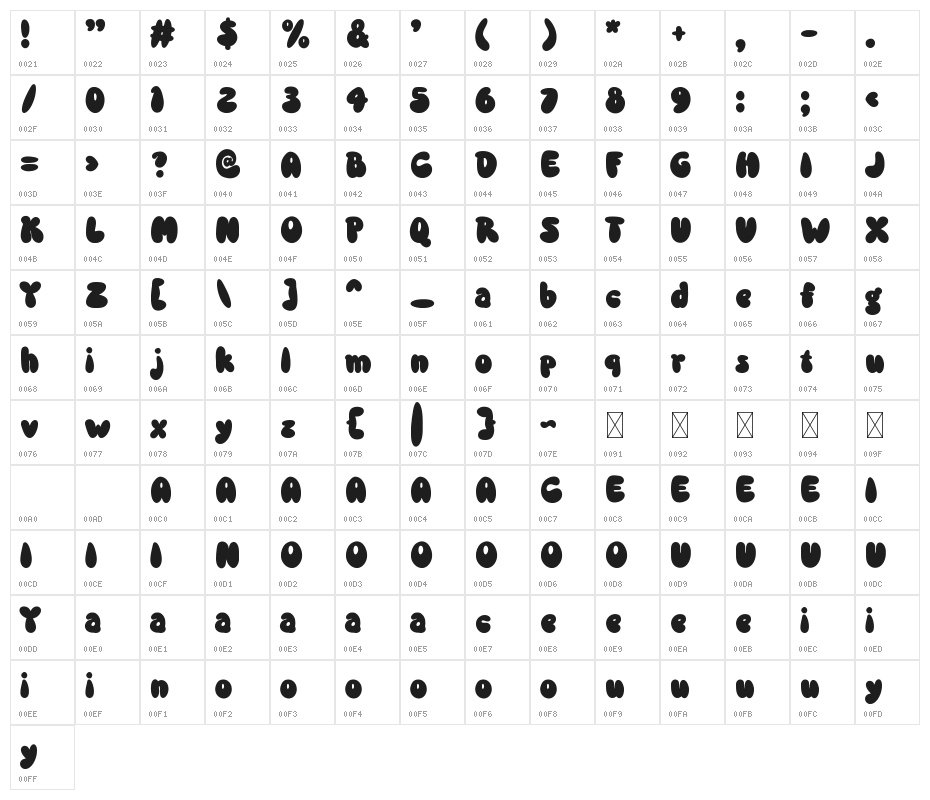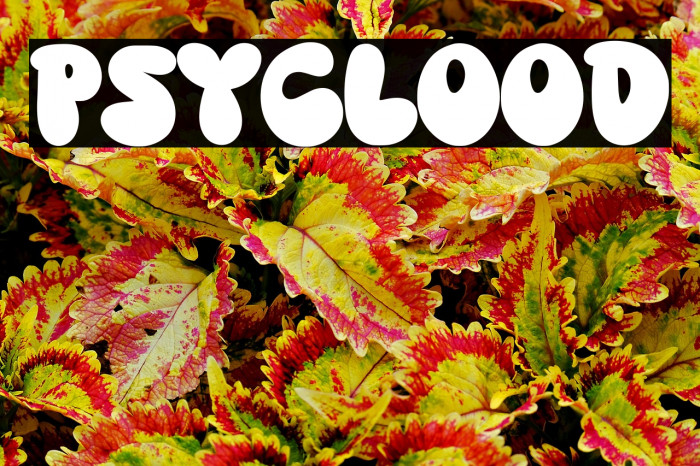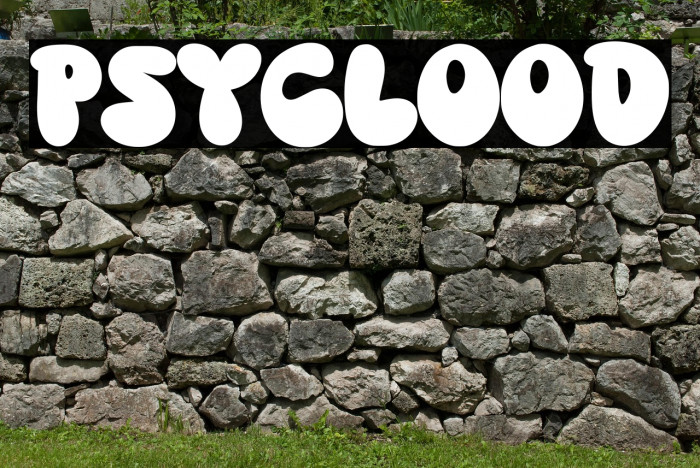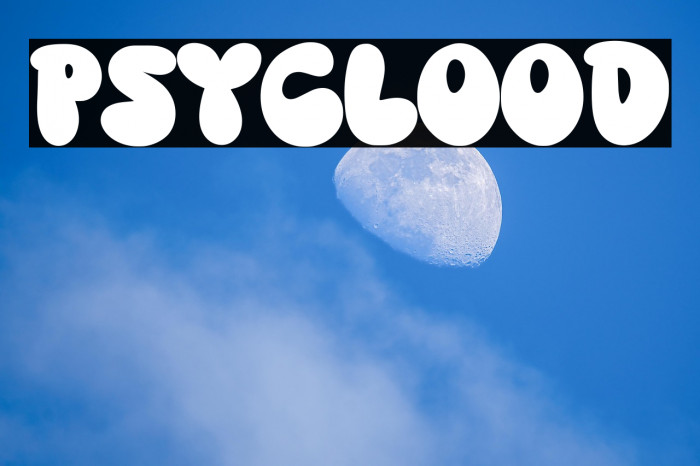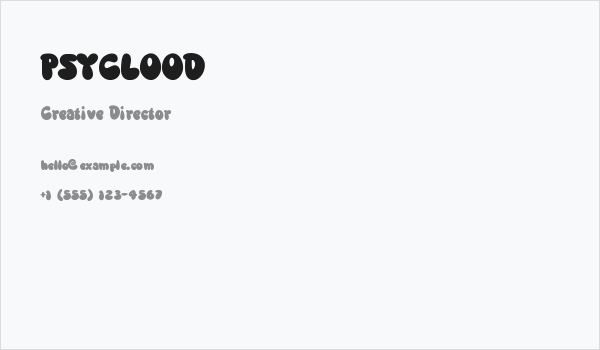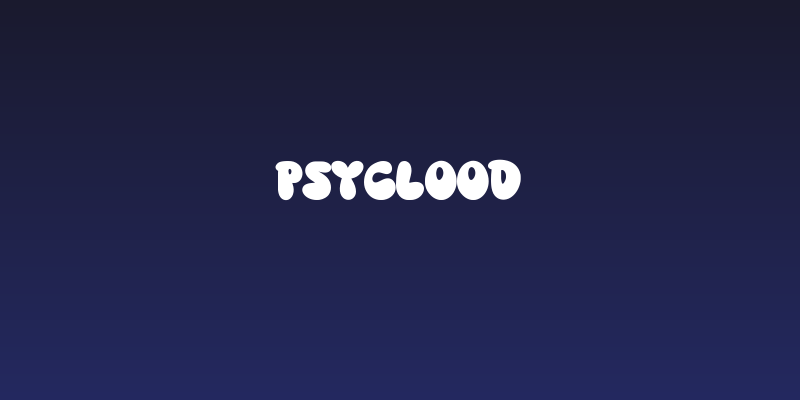
PSYCLOOD Font
PSYCLOOD Description
This playful and bold font features rounded, bubble-like characters that create a sense of fun and whimsy. The letters are thick and have a uniform weight, giving them a strong presence on the page. The rounded edges and lack of sharp angles contribute to a friendly and approachable aesthetic. This font is highly decorative, making it ideal for projects that require a touch of creativity and playfulness. The characters are evenly spaced, ensuring readability despite their unconventional shapes. The font includes a full set of uppercase and lowercase letters, numbers, and a variety of special characters, making it versatile for different design needs.